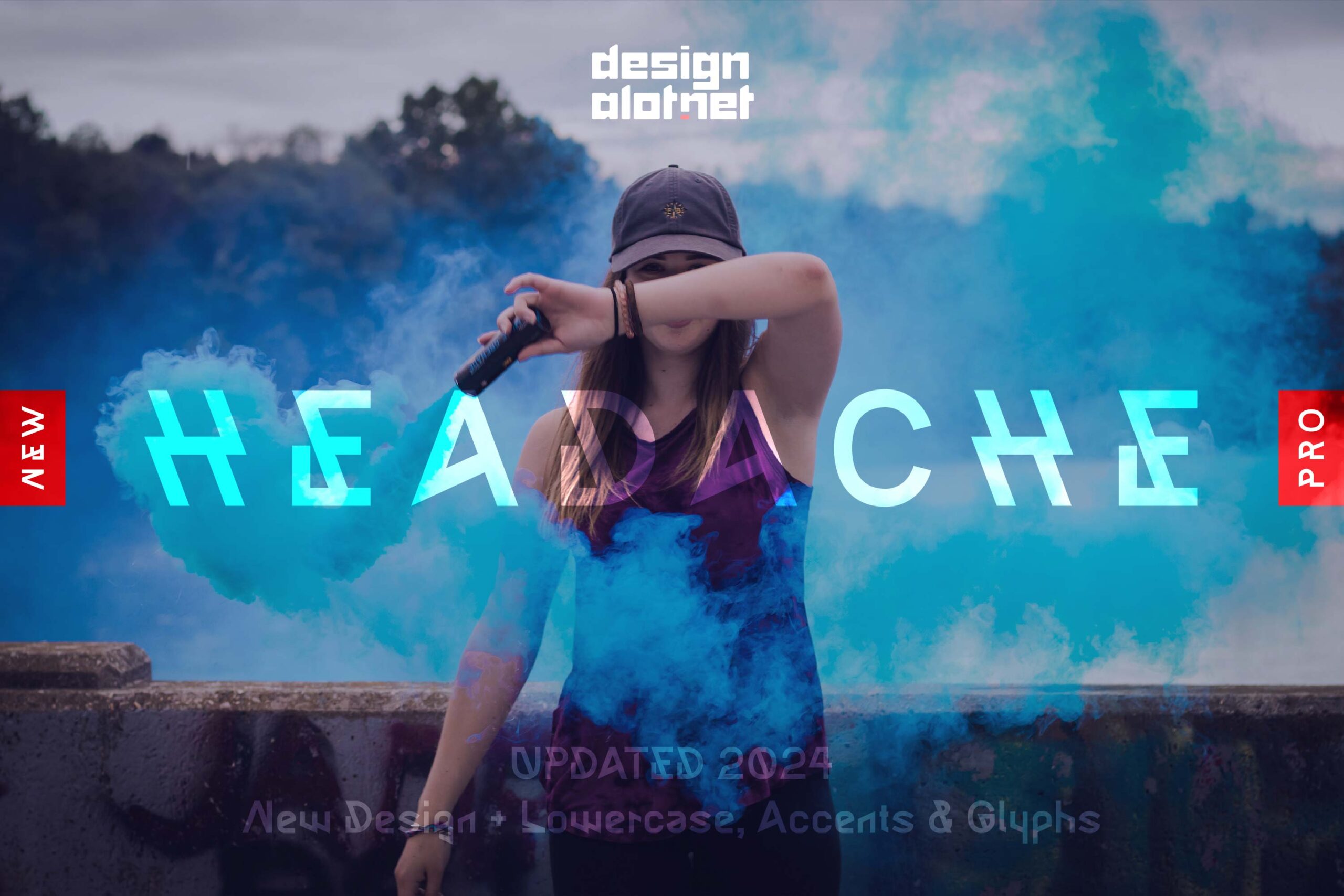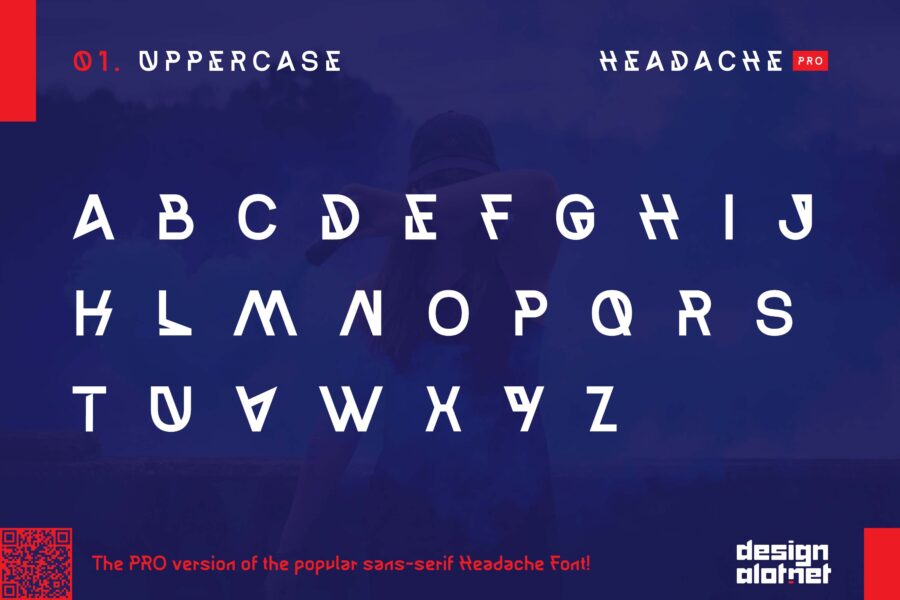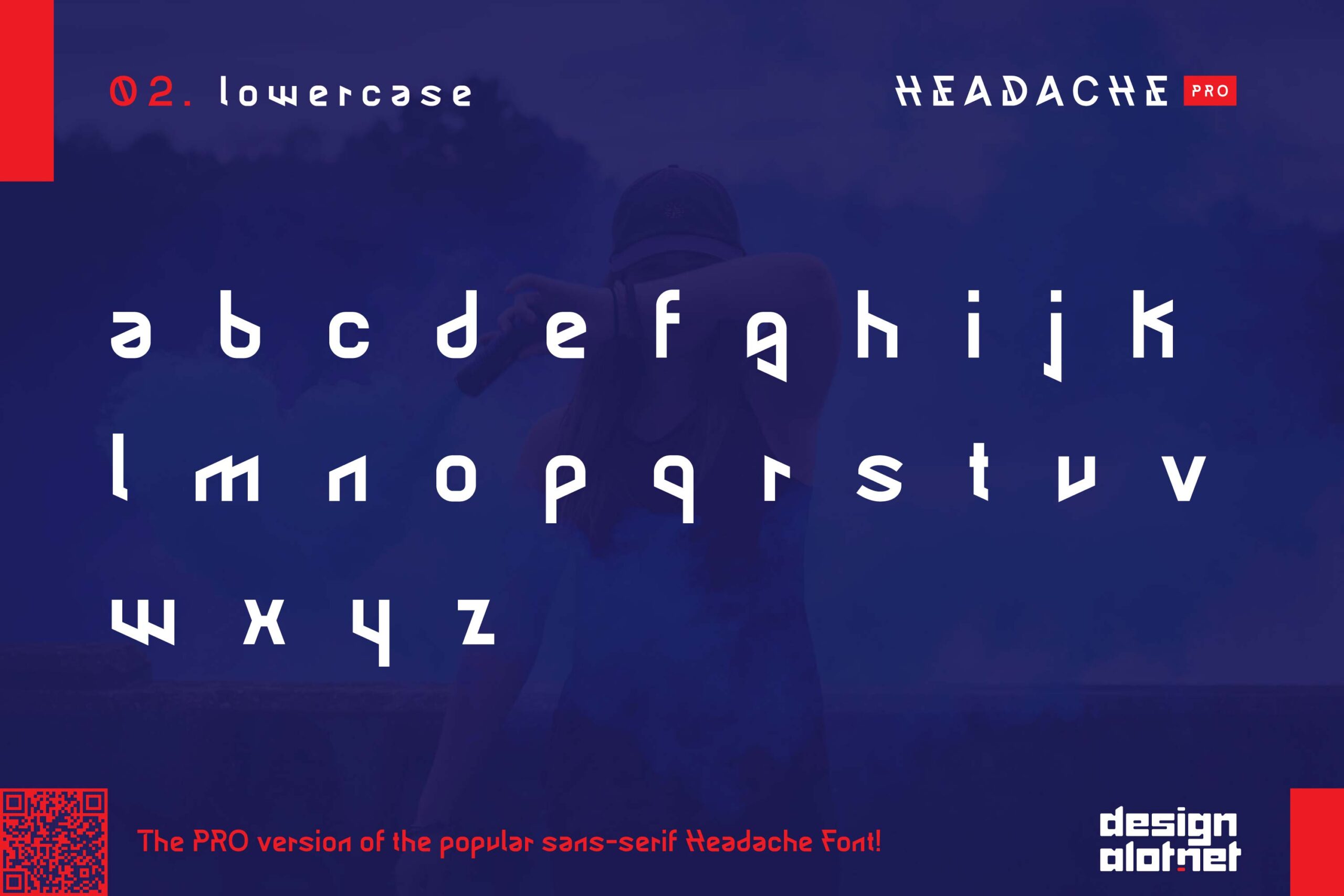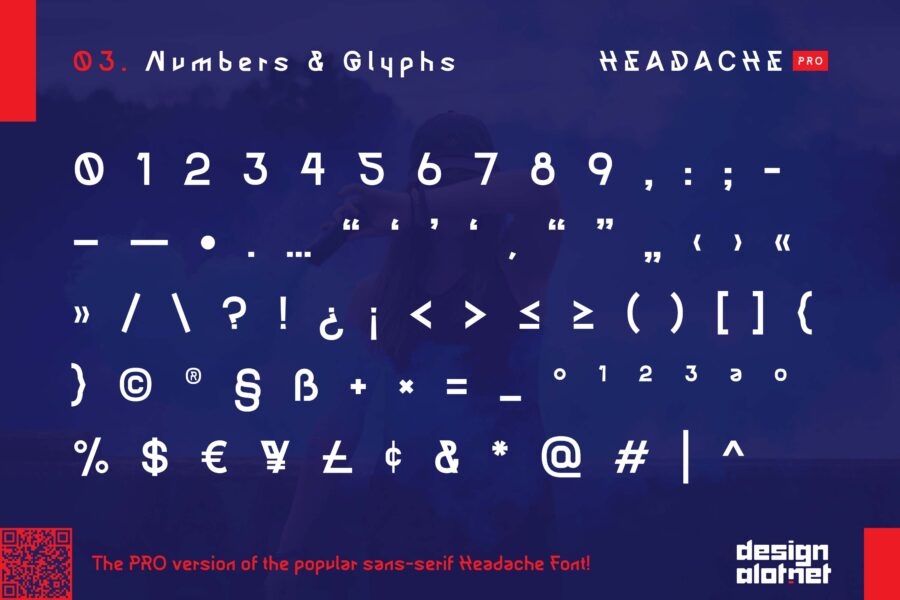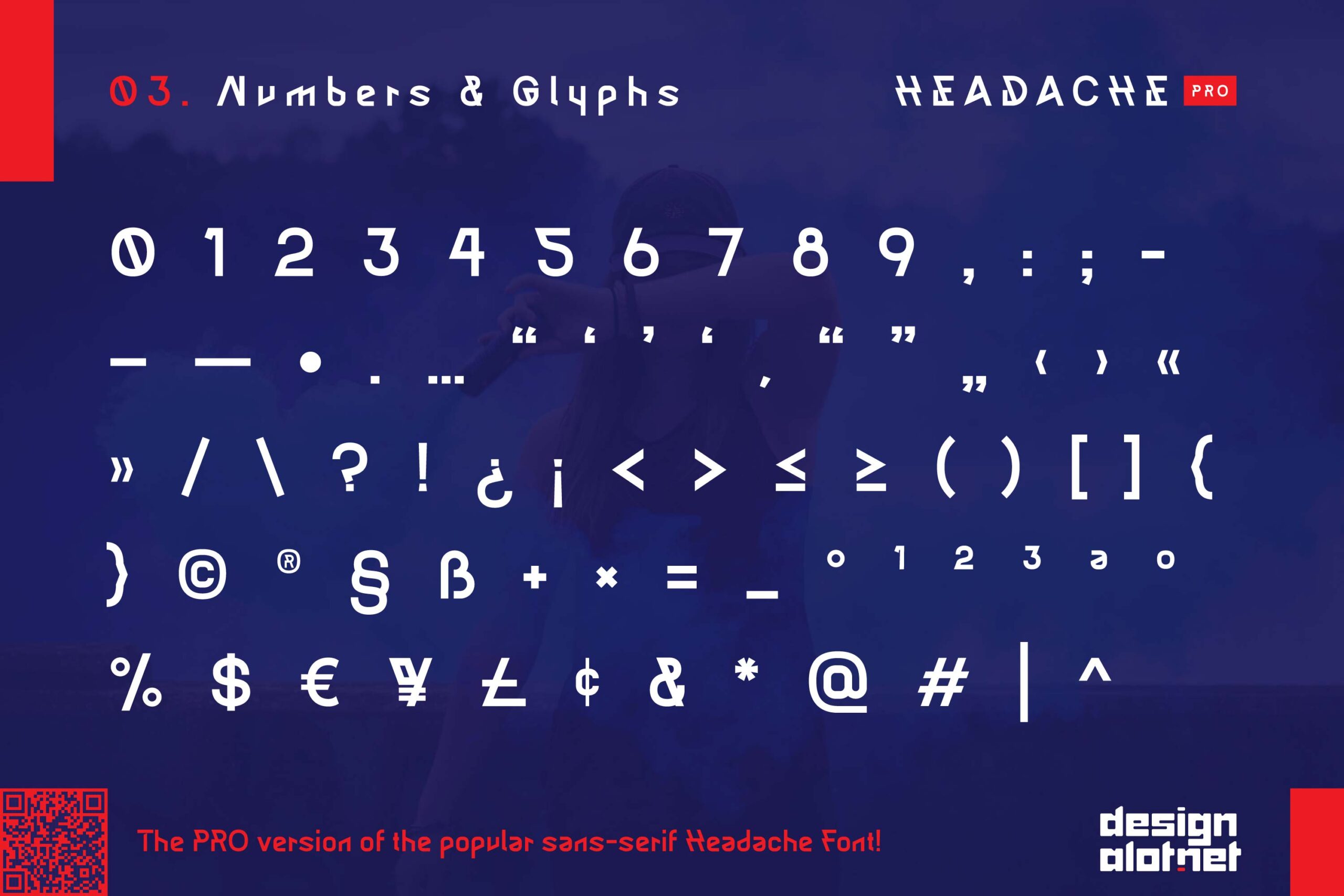
Headache is a display sans-serif built to be noticed. Headlines, posters, wordmarks, campaign titles – anywhere contrast and presence matter more than subtlety.
Headache started as a caps-only display font in 2017. The aesthetic landed fast – something between futuristic and deliberately chaotic – and it spread across album covers, brand projects, merch, and editorial work in a way that was hard to predict and harder to explain.
The Pro version fixes the one thing that was always wrong with it. The original had a second “style” that was just the uppercase letters with minor variations, barely useful, visually inconsistent. That’s gone. In its place: actual lowercase letters, designed from scratch to work alongside the uppercase. Same character. Better execution.
The uppercase has been refined too. Not redesigned – the personality is intact – but the rougher inconsistencies from the original have been resolved. It’s the same font, done properly.
Headache is a single-style display typeface. It’s built for short, high-impact setting: headlines, titles, wordmarks, poster copy. It’s not a body text font. Use it where you need something to hold attention, and pair it with something quieter for everything else.